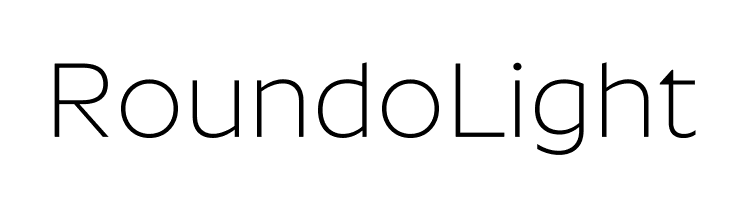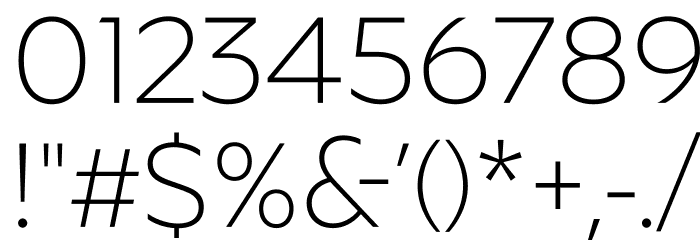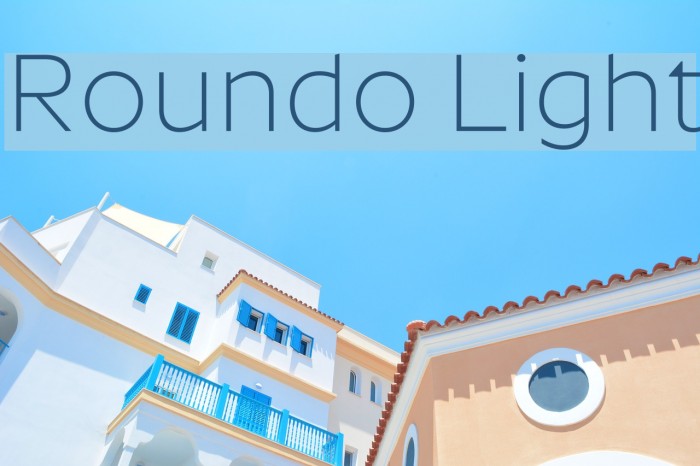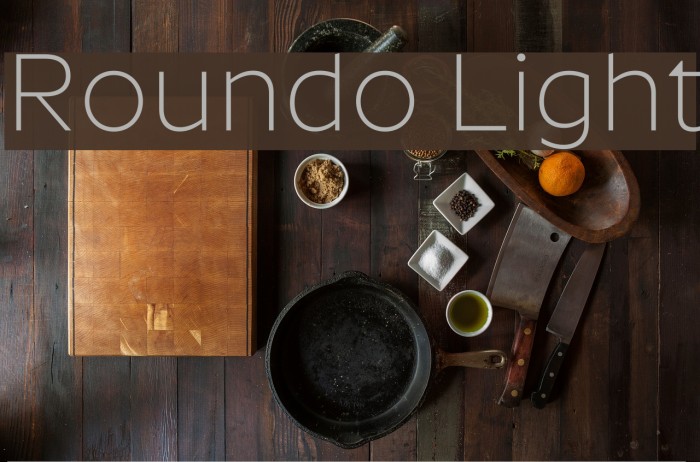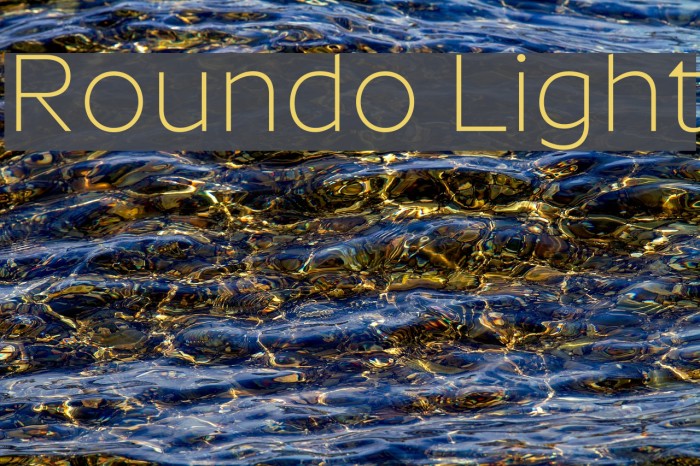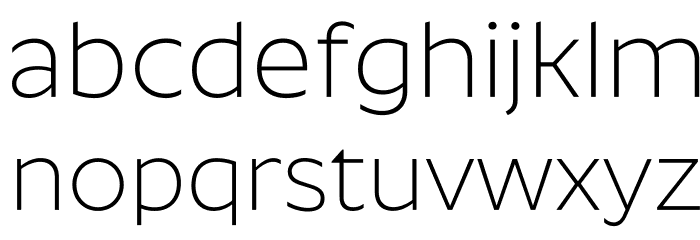
Roundo Light Font
Roundo Light Description
This font features a clean and modern sans-serif design with a light weight, making it ideal for minimalist and contemporary projects. The characters exhibit a uniform stroke width, contributing to a sleek and streamlined appearance. The rounded edges of the letters add a touch of softness and approachability, while maintaining a professional and polished look. The font's simplicity and clarity ensure excellent readability across various sizes and applications. Its geometric structure is balanced and harmonious, making it versatile for both digital and print media.
A modern, light sans-serif font with rounded edges and uniform stroke width from Uncategorized fonts.
- Proposed Projects: Suitable for branding, web design, corporate materials, and user interfaces.
- Weight: Light